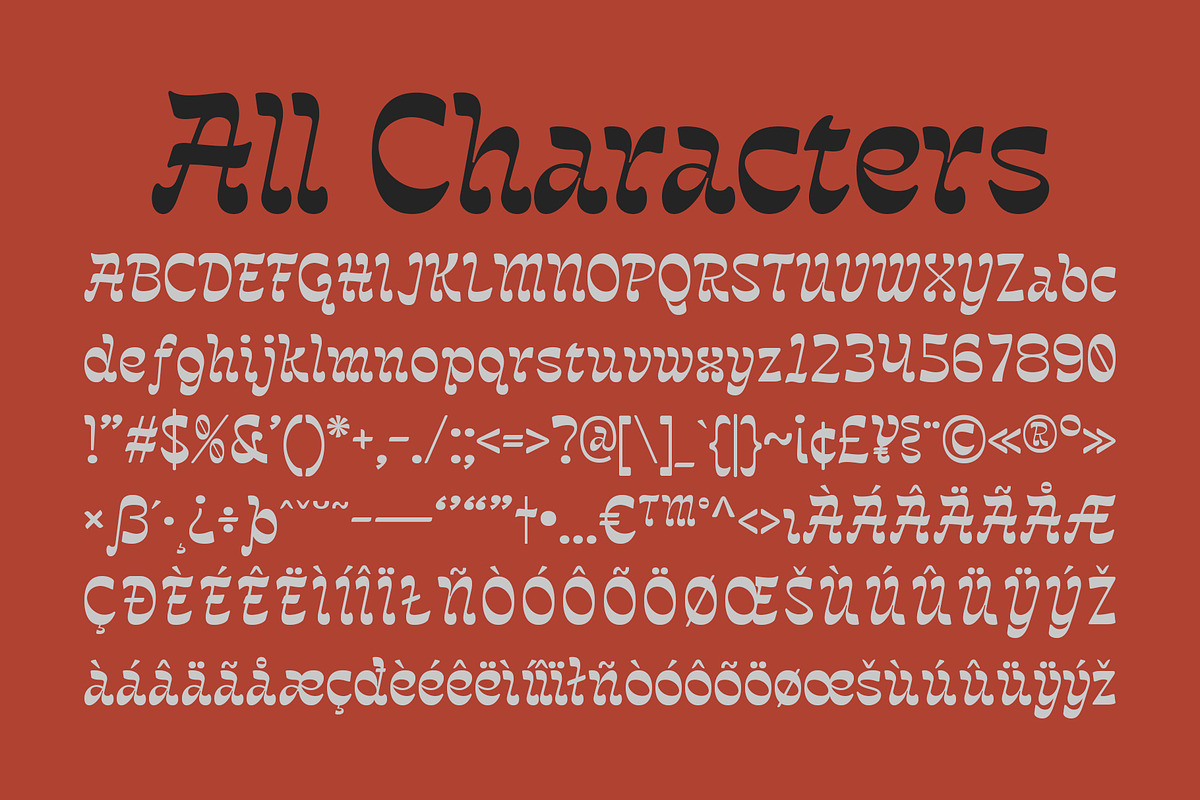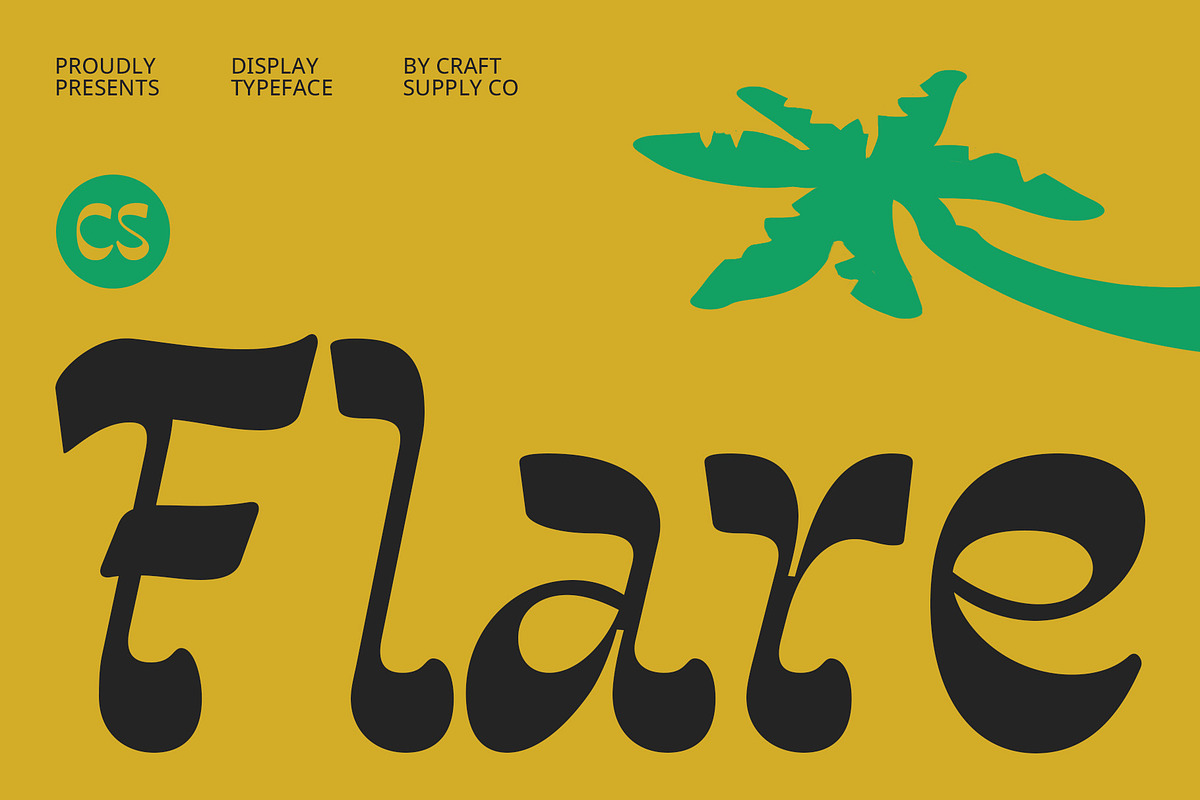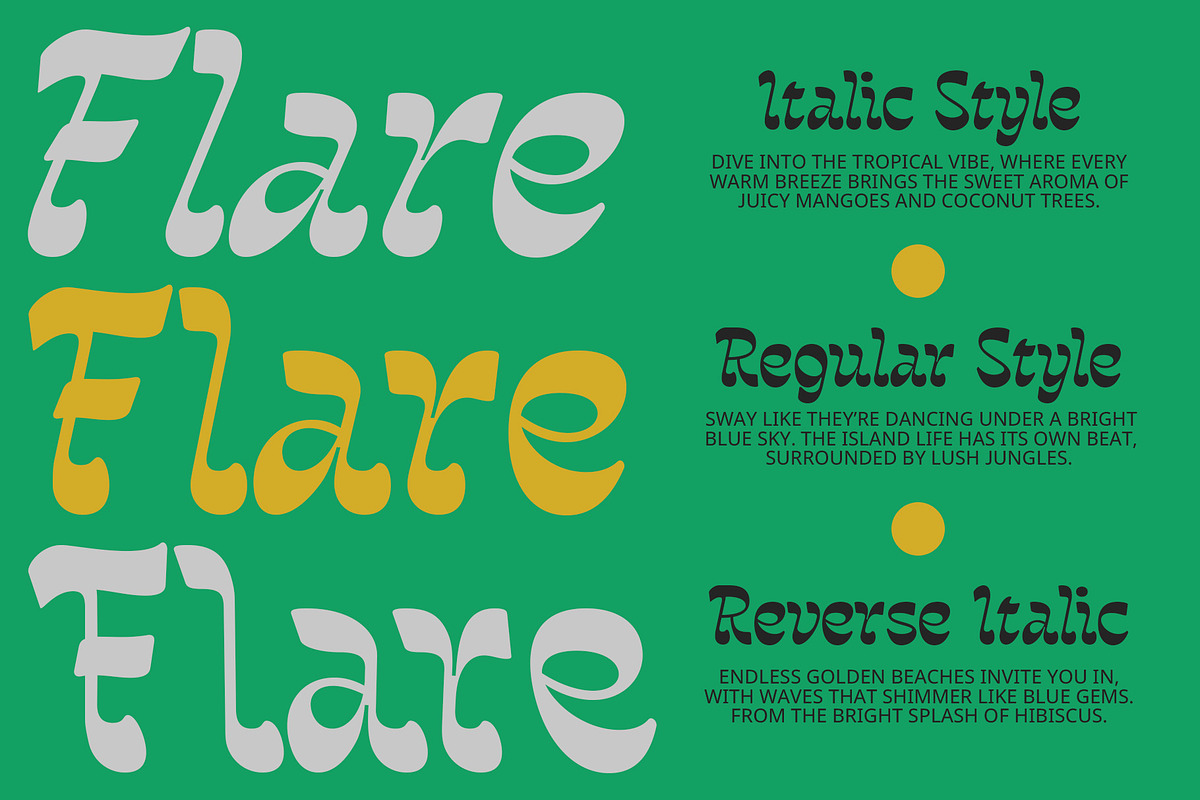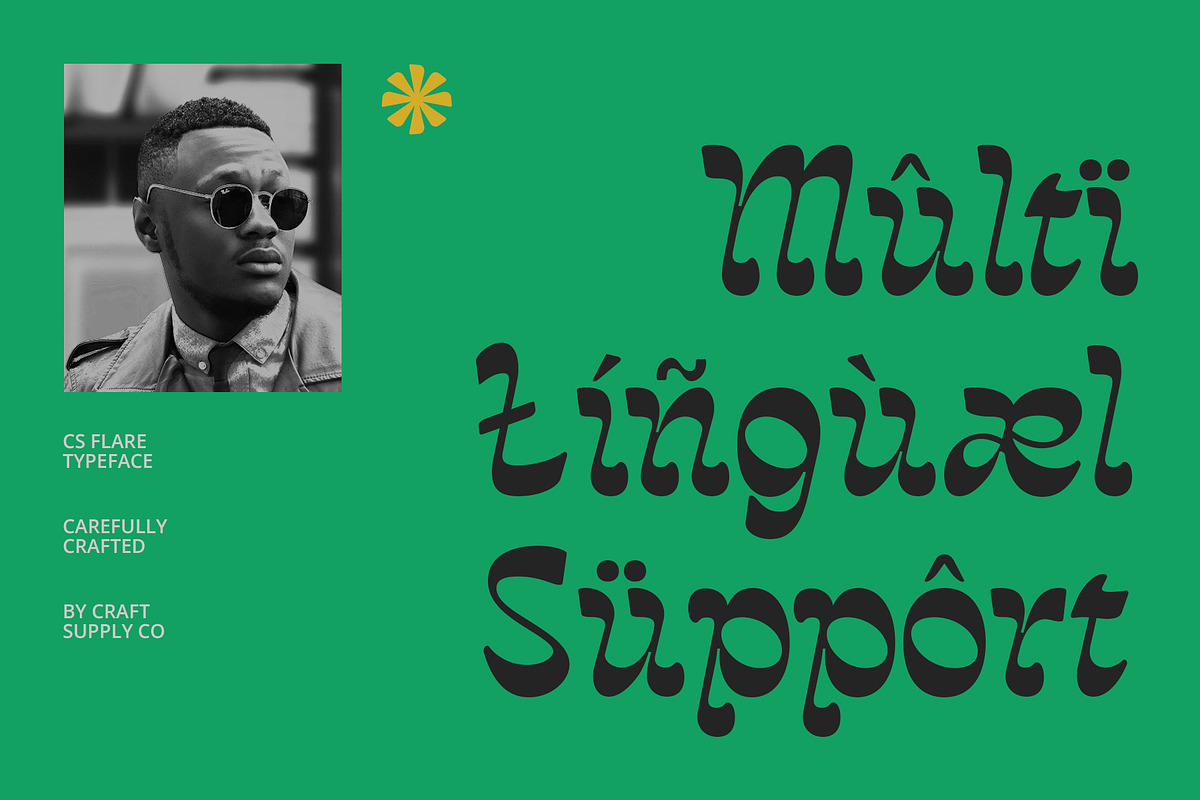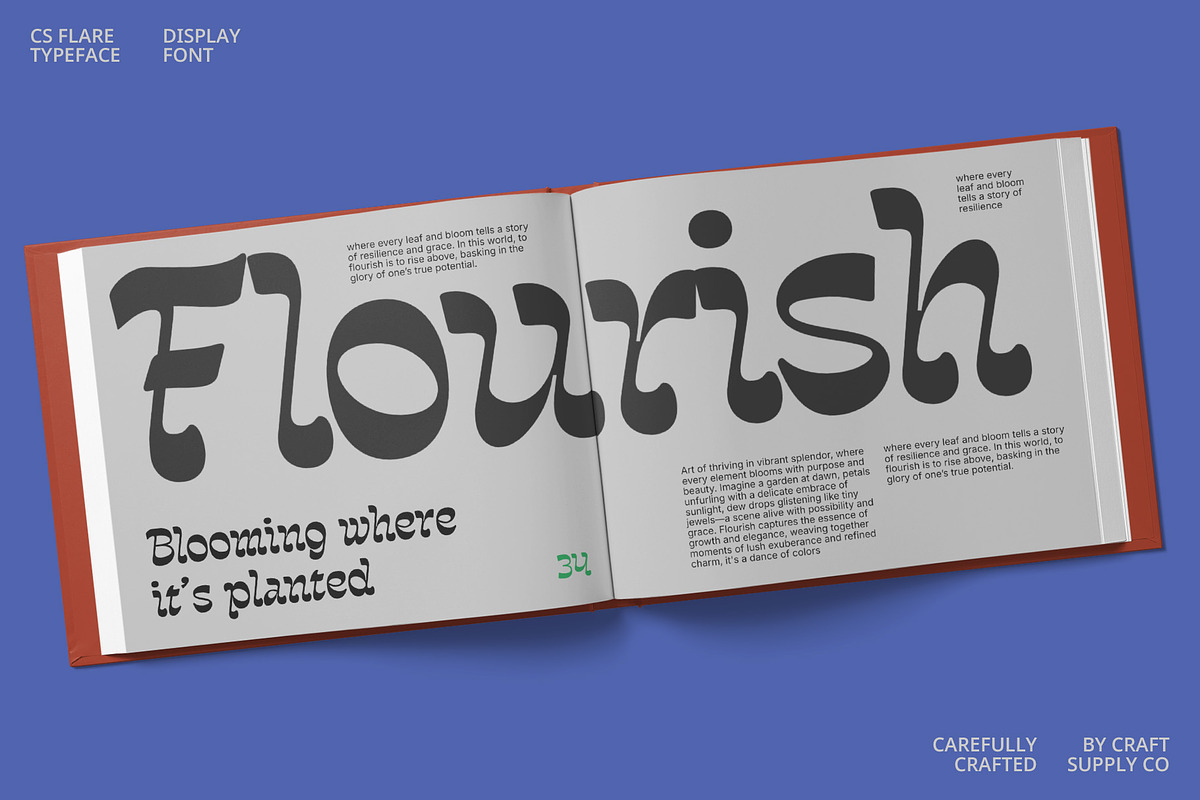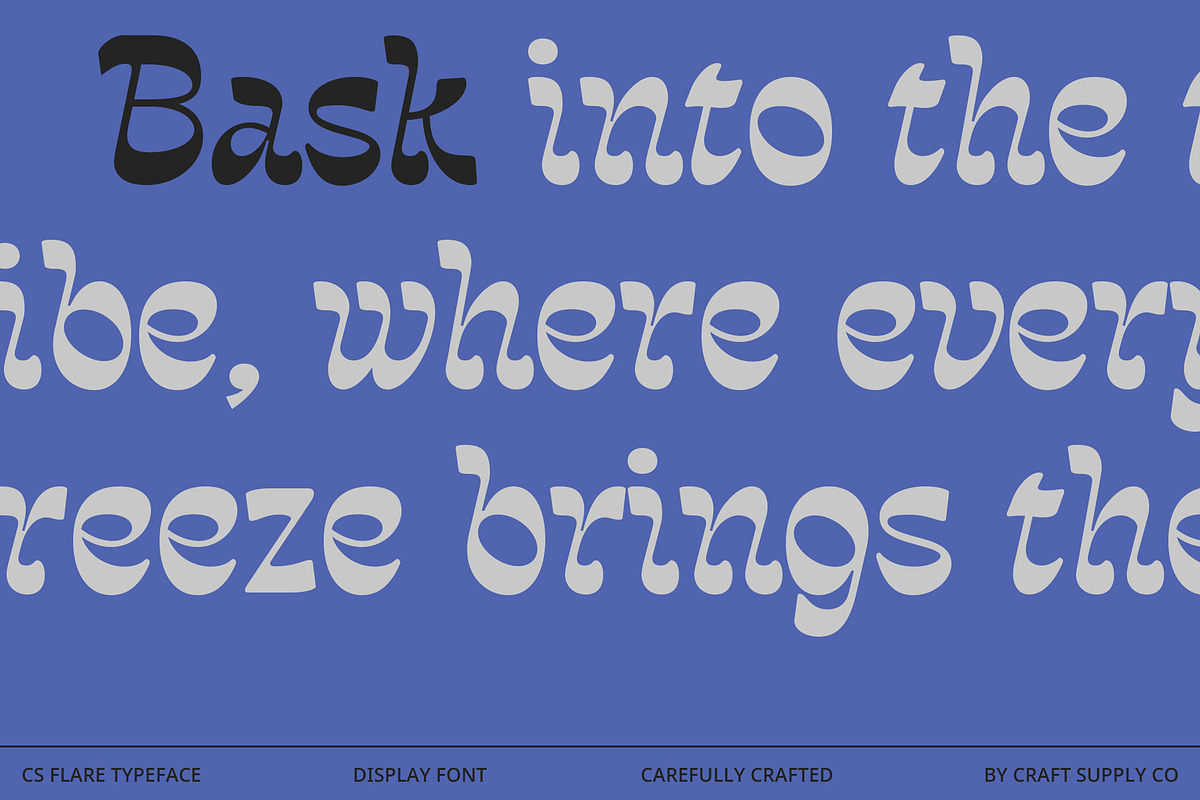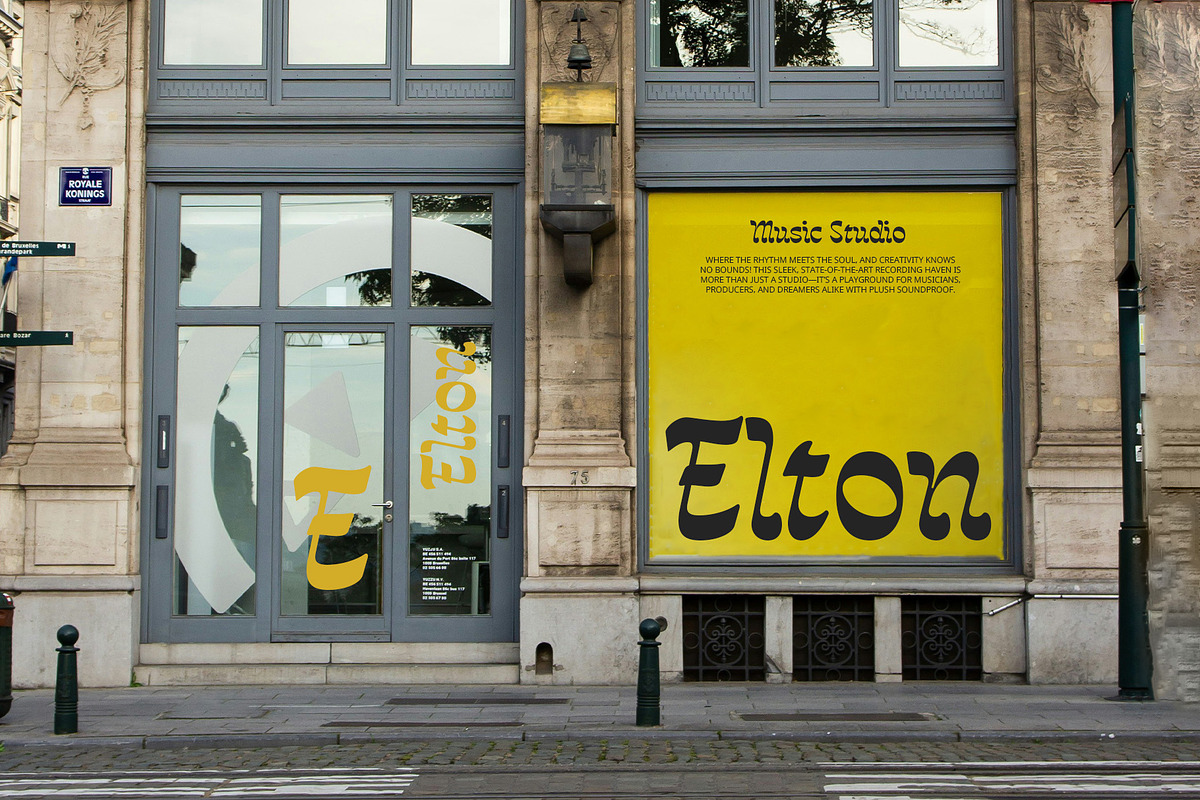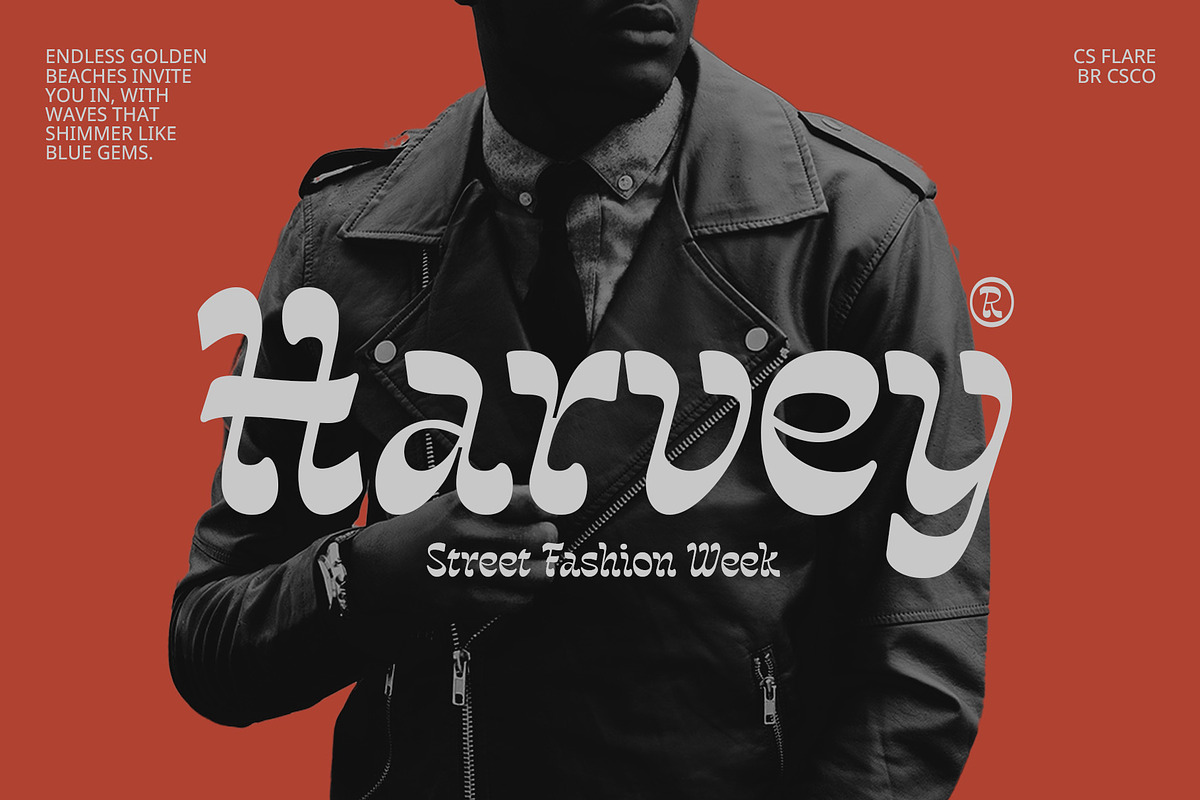
CS Flare – Reverse Contrast Font
CS Flare Font: Retro Elegance with Reverse Contrast
Classic Serif Design with a Modern Twist CS Flare is a serif font that introduces a unique reverse contrast, where traditional weight distribution is flipped—thin strokes become thick, and thick strokes become thin. This unexpected design element combines classic elegance with a bold, eye-catching twist, offering a fresh take on vintage typography.
Retro Aesthetic with a Bold Flair The reverse contrast in CS Flare evokes a retro aesthetic reminiscent of old-school typography, adding a touch of nostalgic charm to your designs. This distinctive style blends the grace of traditional serif fonts with a modern, bold look, making it a standout choice for projects that seek to blend the past with the present.
Perfect for Blending Tradition and Modernity Ideal for branding, posters, and editorial designs, CS Flare excels in projects that aim to mix tradition with a hint of modernity. Its reverse contrast design not only draws attention but also adds character, making your text both memorable and visually striking.
Versatile for Vintage and Contemporary Designs Whether you’re creating a vintage-inspired logo or a contemporary editorial layout, CS Flare’s unique combination of classic serif elements and reverse contrast ensures your design stands out with a perfect balance of elegance and innovation.
- CS Flare Regular
- CS Flare Italic
- CS Flare Reverse Italic